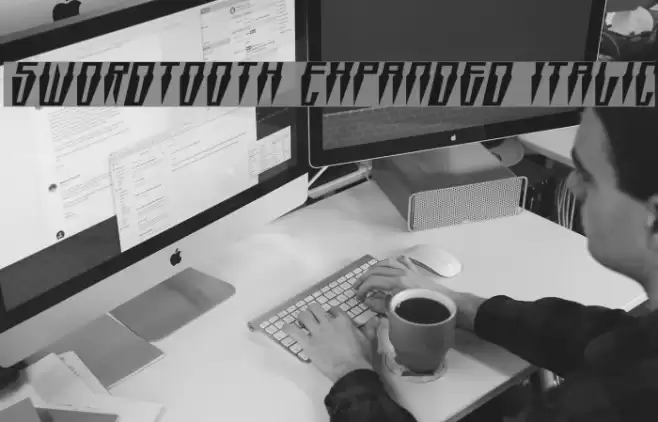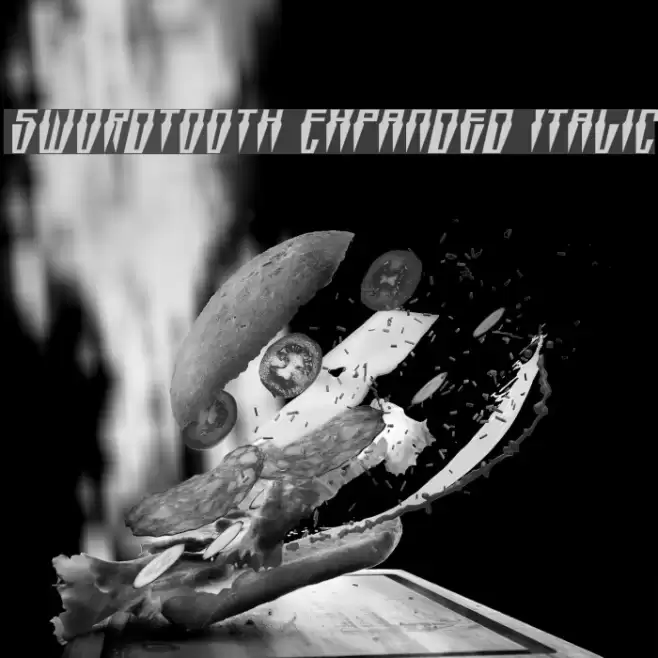
Swordtooth Expanded Italic Font
Swordtooth Expanded Italic Description
This font features a bold and aggressive design with sharp, angular edges that create a striking and dynamic appearance. The characters are italicized, adding a sense of motion and energy. The expanded width gives each letter ample space, enhancing readability while maintaining its bold presence. The high contrast between thick and thin strokes further emphasizes the font's dramatic style. This font is ideal for projects that require a strong visual impact, such as branding, posters, or video game titles.
A bold, italicized font with sharp angles and high contrast, perfect for impactful designs from Uncategorized fonts.
- Proposed Projects: Ideal for branding, posters, video game titles, and any project needing a bold visual statement.
- Overall Style: Modern, Decorative